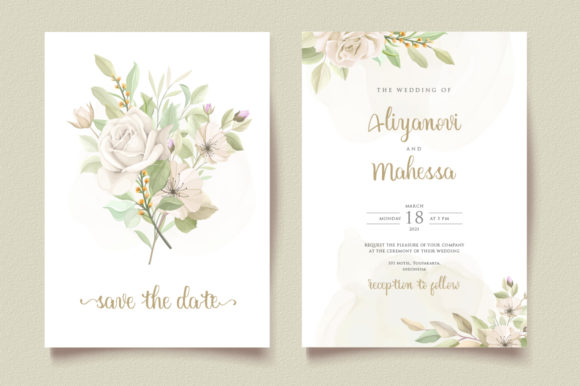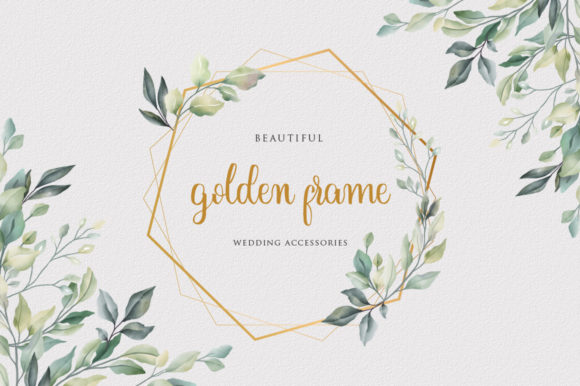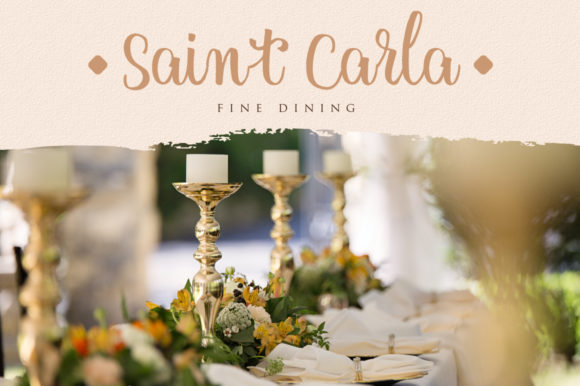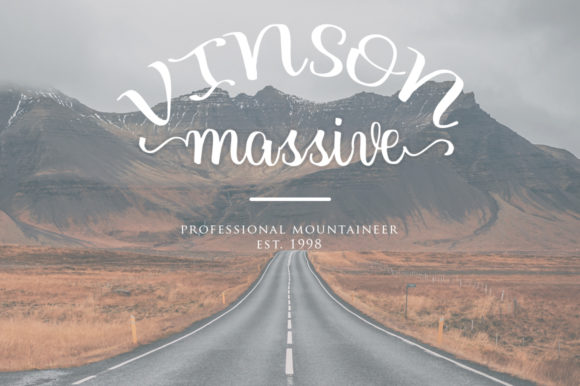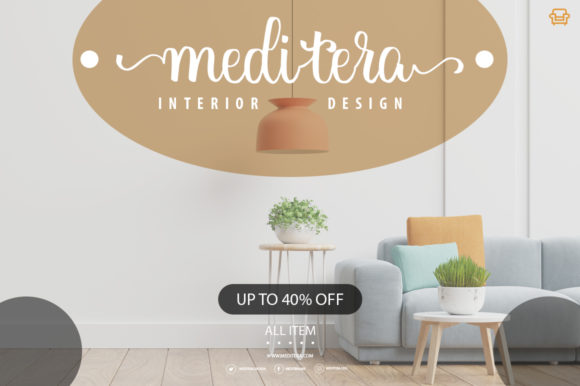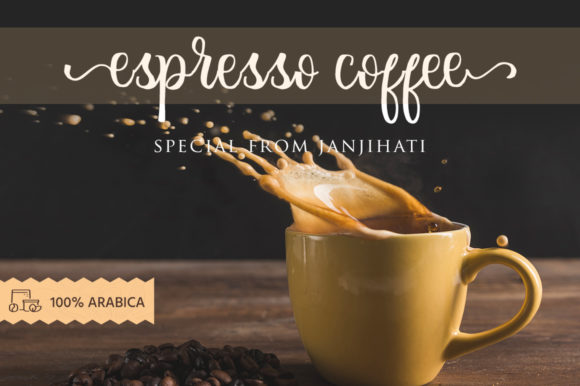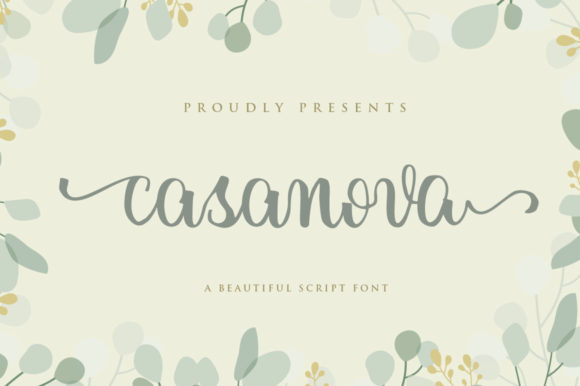
Casanova Font: Elevate Your Designs with Style and Elegance
In the world of typography, a stylish script font can make all the difference in elevating your designs to the next level. Introducing Casanova Font, a stunning script font that exudes elegance and sophistication. With its beautiful swashes and glyphs, Casanova is perfect for designers and crafters looking to add a touch of luxury to their projects.
What Makes Casanova Font Stand Out?
Casanova Font is a stylish script font that stands out from the rest due to its unique and elegant design. Its flowing lines and beautiful swashes make it perfect for use in a variety of contexts, from busy backgrounds to standalone headlines. Whether you’re designing a logo, brochure, or website, Casanova Font is sure to make a lasting impression.
One of the best features of Casanova Font is that it’s PUA (Private Use Area) encoded. This means that you can access all of the glyphs and swashes with ease, giving you complete creative control over your designs. With PUA encoding, you can easily insert swashes, ligatures, and other special characters into your text, making it easy to create beautiful and unique designs.
Perfect for Busy Backgrounds and Standalone Headlines
Casanova Font is designed to look outstanding in any context. Whether you’re using it on a busy background or as a standalone headline, this font is sure to make a statement. Its elegant design and beautiful swashes ensure that it will stand out from the crowd, even in the most cluttered of designs.
With Casanova Font, the design possibilities are endless. Here are just a few ideas to get you started:
- Logos and branding: Use Casanova Font to create a luxurious and sophisticated brand identity.
- Brochures and flyers: Add a touch of elegance to your marketing materials with Casanova Font.
- Websites and blogs: Use Casanova Font to create stunning headlines and titles that will make your website or blog stand out.
- Social media graphics: Add a touch of luxury to your social media graphics with Casanova Font.
- Stationery and invitations: Use Casanova Font to create beautiful and elegant stationery and invitations.
Tips for Using Casanova Font
Here are a few tips for using Casanova Font to get the most out of this beautiful script font:
- Experiment with different sizes: Casanova Font looks great in a variety of sizes, from large headlines to smaller body text.
- Play with swashes: Use the swashes and glyphs to add a touch of elegance to your designs.
- Mix and match: Combine Casanova Font with other fonts to create a unique and interesting design.
- Use it sparingly: Use Casanova Font sparingly to create a sense of luxury and sophistication.
Casanova Font is a stunning script font that is sure to elevate your designs to the next level. With its elegant design, beautiful swashes, and PUA encoding, this font is perfect for designers and crafters looking to add a touch of luxury to their projects. Whether you’re designing a logo, brochure, or website, Casanova Font is sure to make a lasting impression.
Get Ready to Fall in Love with Casanova Font
If you’re looking for a stylish and elegant script font to add to your collection, look no further than Casanova Font. With its beautiful design and endless possibilities, this font is sure to become a favorite among designers and crafters. So why wait? Get Casanova Font today and start creating stunning designs that will leave a lasting impression!